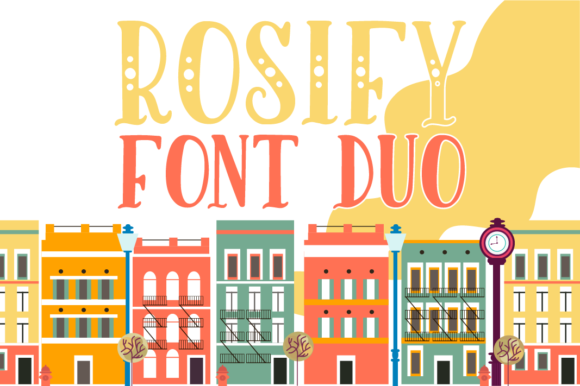
In a realm of digital artistry where letters take center stage, Rosify Duo Font emerges as a captivating creation, a masterpiece of expression that ignites both imagination and nostalgia. Its playful nature captivates the senses, evoking memories of childhood wonder and the boundless joy of discovery.
Crafted with meticulous attention to detail by the talented minds at CraftBundles, Rosify Duo Font boasts a captivating duality, seamlessly blending the charm of a handwritten script with the crisp precision of a modern typeface. This unique combination grants it an unparalleled versatility, effortlessly adapting to a myriad of creative endeavors.
Step into a world where imagination knows no bounds, where words dance off the page with whimsical grace. Rosify Duo Font is the perfect companion for children's activities, unleashing creativity and igniting a passion for self-expression. Its charming demeanor adds a touch of magic to school projects, transforming ordinary assignments into extraordinary works of art.
With Rosify Duo Font as your creative ally, you'll discover a limitless realm of possibilities. Its playful energy breathes life into logos and branding, attracting attention and capturing hearts. Create enchanting invitations and greeting cards that leave a lasting impression, carrying your heartfelt messages in a captivating visual embrace.
Embrace the allure of Rosify Duo Font and embark on a creative odyssey. Its playful nature will inspire you to think outside the box, to explore unconventional paths and discover hidden gems of creativity. Let your imagination soar as you craft social media posts that captivate your audience, leaving them enthralled and eager for more.
Rosify Duo Font is more than just a collection of letters; it's an open invitation to unleash your inner child, to rediscover the joy of playful expression. Its charming aura transforms ordinary designs into extraordinary creations, adding a touch of whimsy and delight to every project it graces.
In a world saturated with conformity, Rosify Duo Font stands as a beacon of individuality, a symbol of the power of imagination. Embrace its playful spirit and let your creativity shine through, crafting designs that resonate with authenticity and leave an indelible mark on the hearts of those who behold them.